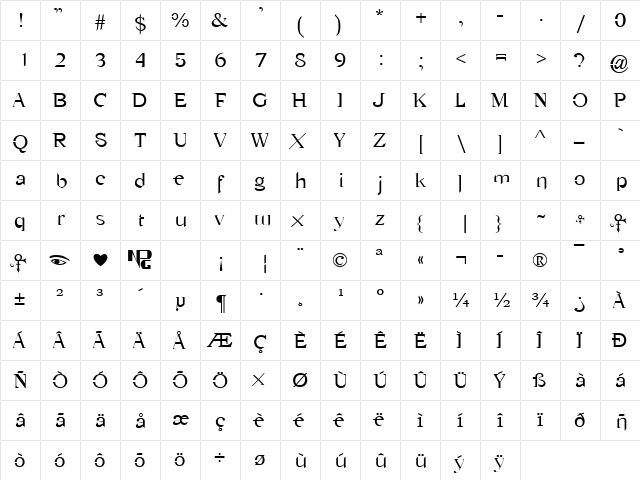
Emancipation Light Font Preview
Emancipation Light
Emancipation Light Font Details
Design Context for Emancipation Typeface
Emancipation is a composed and adaptable typeface that performs quietly and consistently across a wide range of design contexts. Its slender proportions lend an understated elegance to any composition.